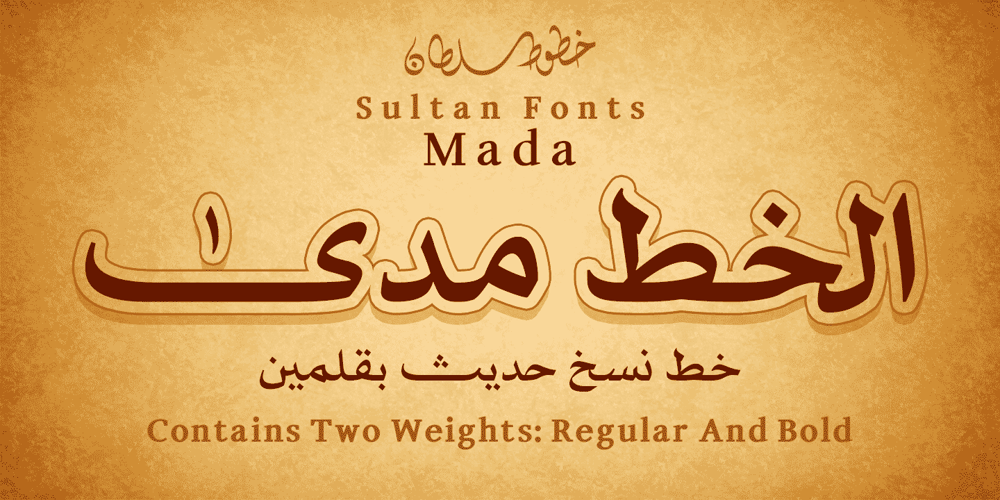
SF Mada Font Family was designed by Sultan Maqtari and published by Sultan Fonts. SF Mada contains 2 styles and family package options. Mada is An Arabic typeface for desktop applications, for websites, and for digital ads. Mada font family contains two weights: regular and bold. The font includes a design that supports Arabic and Latin languages. Mada typeface comes with many opentype features including stylistic sets.